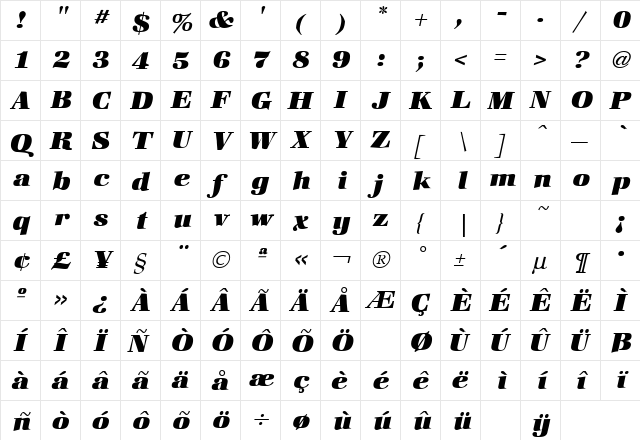
Zapf Heavy Italic
Design Context for Zapf Heavy Typeface
Zapf Heavy takes a measured approach to typography — its balanced proportions and neutral character make it a reliable workhorse for both digital and print work. The dynamic lean of this cut emphasises speed and emphasis in any layout.
Pro Tip: Use Zapf Heavy for emphasis, pull quotes, and subheadings where its slanted energy can add rhythm to the layout.